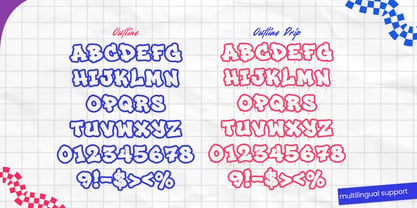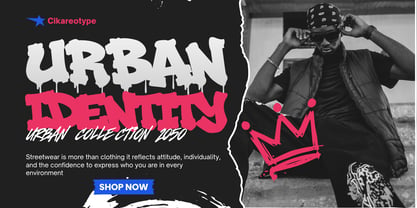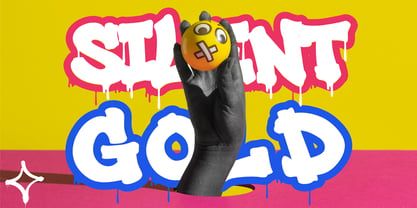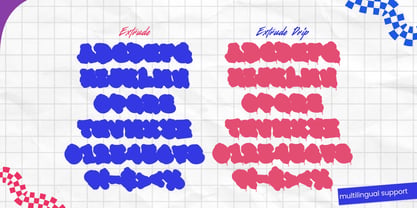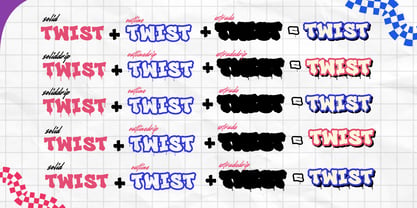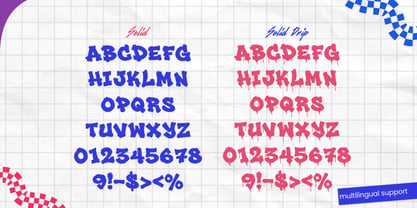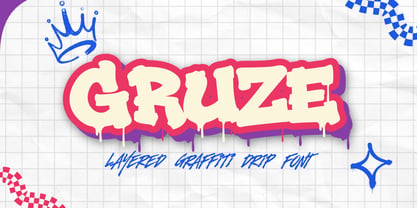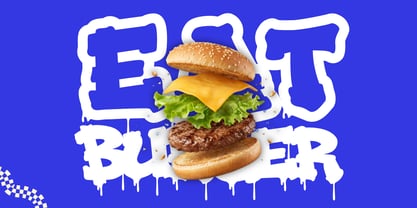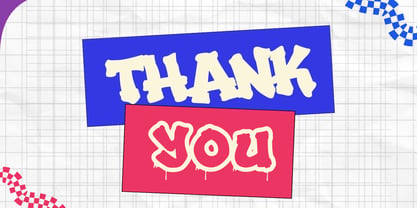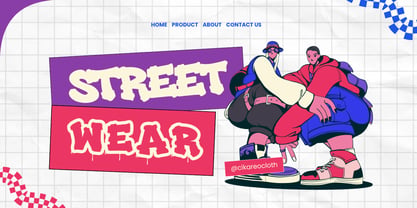
Gruze
by Sipanji21
The Gruze Font Family was designed by Sipanji and published by Sipanji21. Gruze contains 6 styles and family package options. More about this family
Gruze is a bold layered graffiti display font designed to bring authentic street energy, melted lettering, and dimensional typography into modern creative projects. Inspired by graffiti walls, spray-painted lettering, urban culture, wildstyle influences, and flowing liquid shapes, Gruze combines expressive graffiti construction with a versatile layered system that allows designers to create powerful visual compositions.